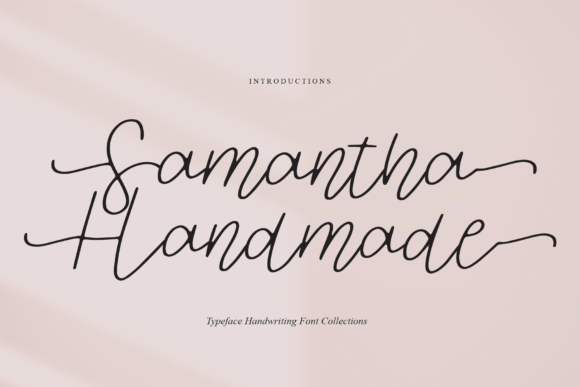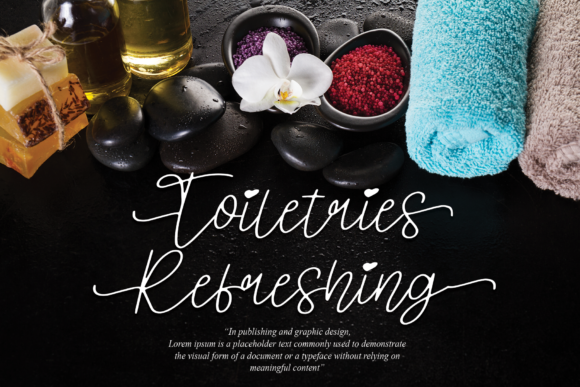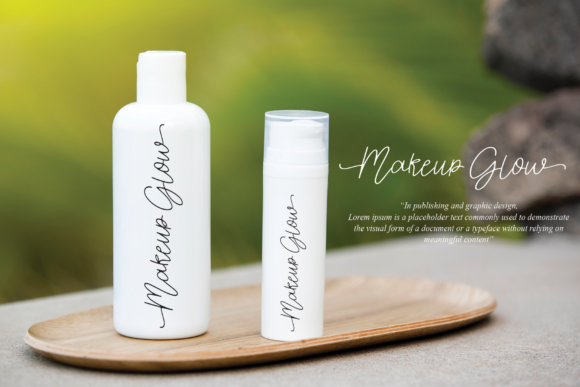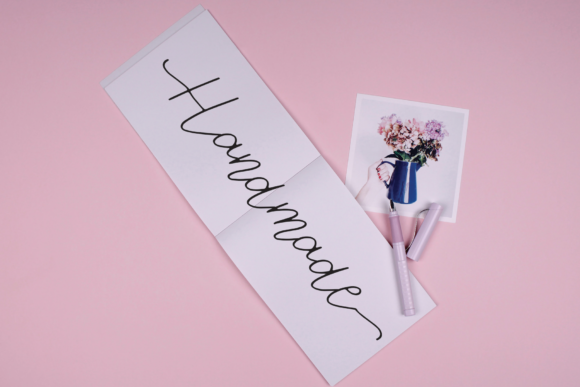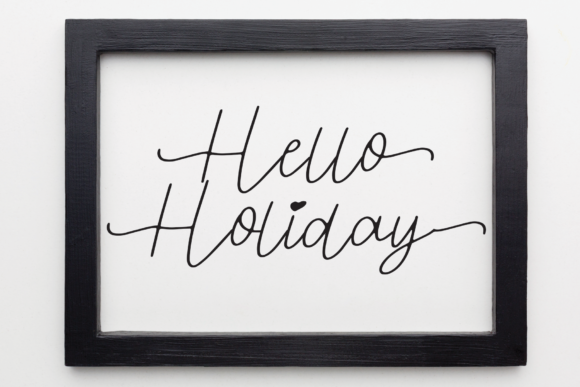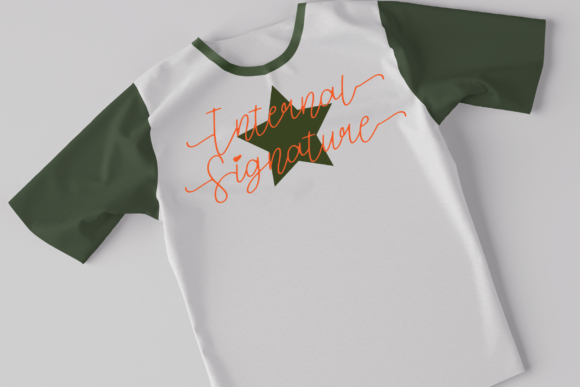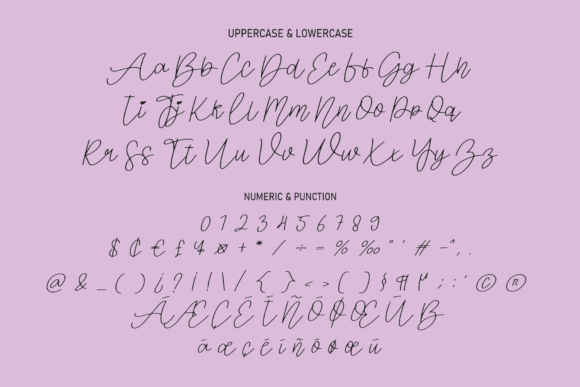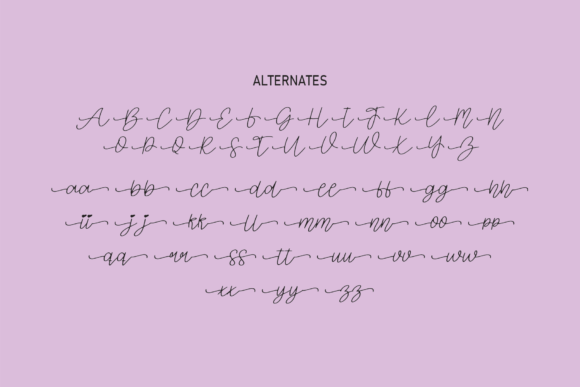
About Samantha Handmade Font
Samantha HandmadeĀ is a chic, refined script font that emanates sophistication and elegance. This font is PUA encoded which means you can access all glyphs and swashes with ease!